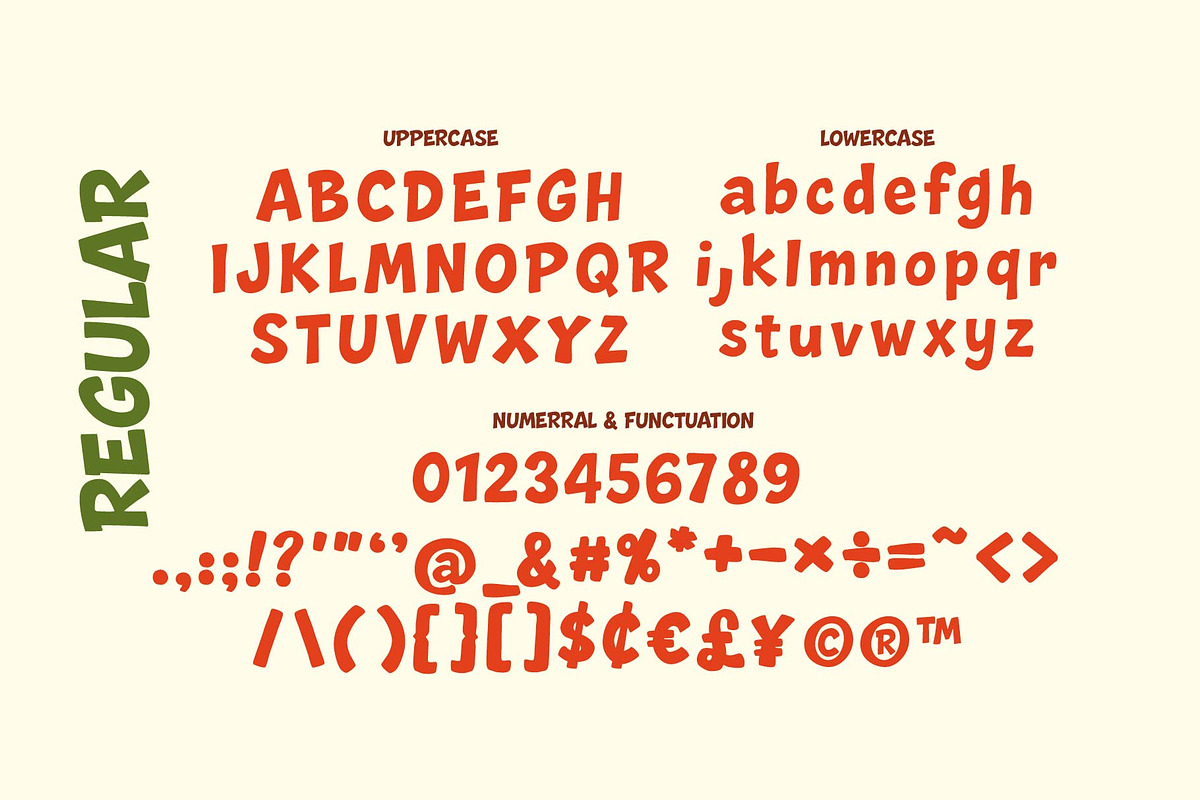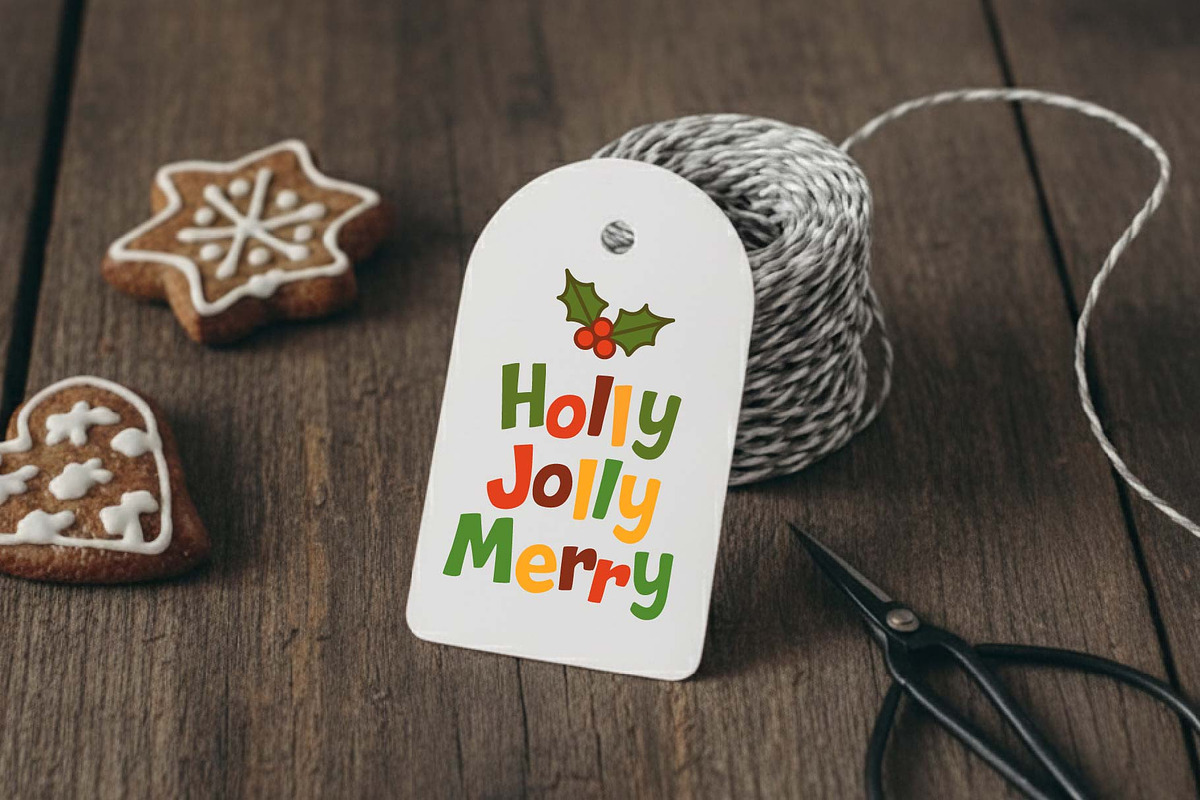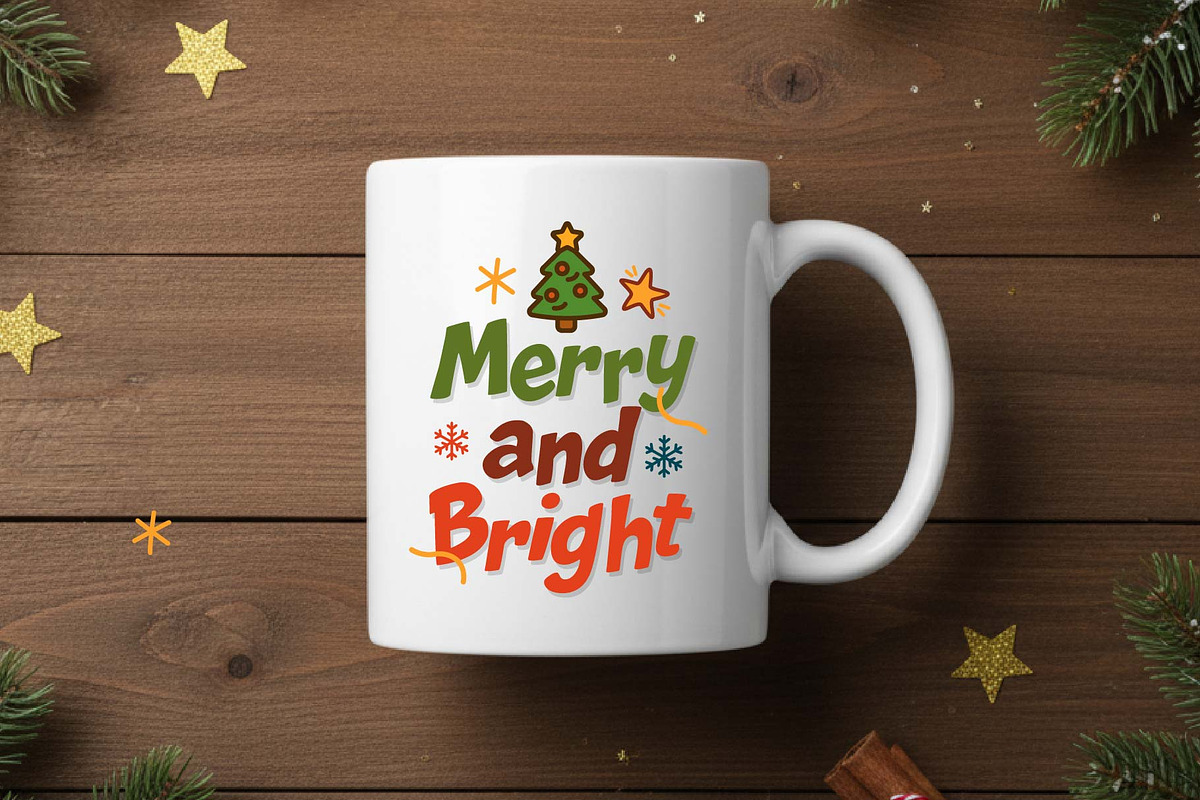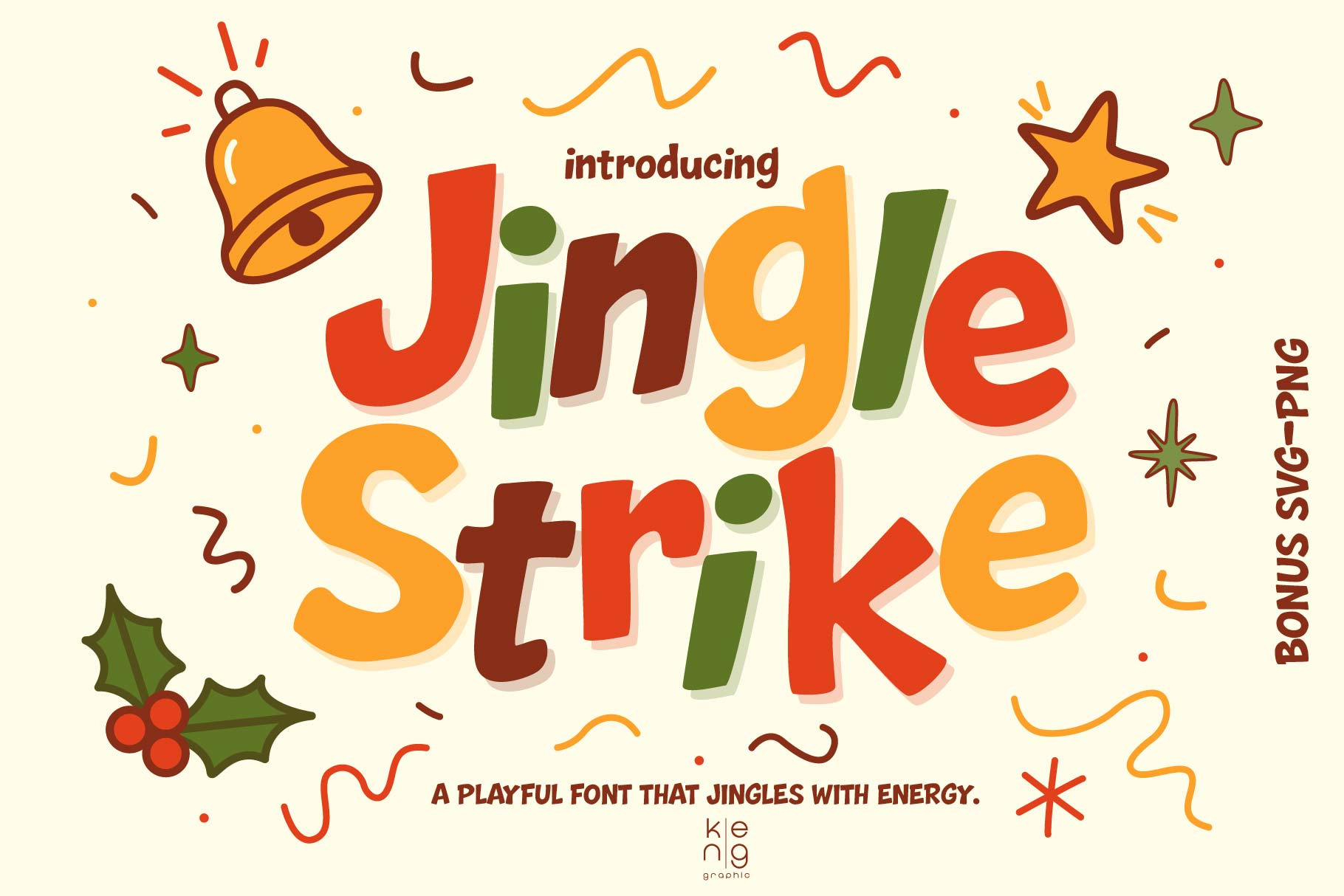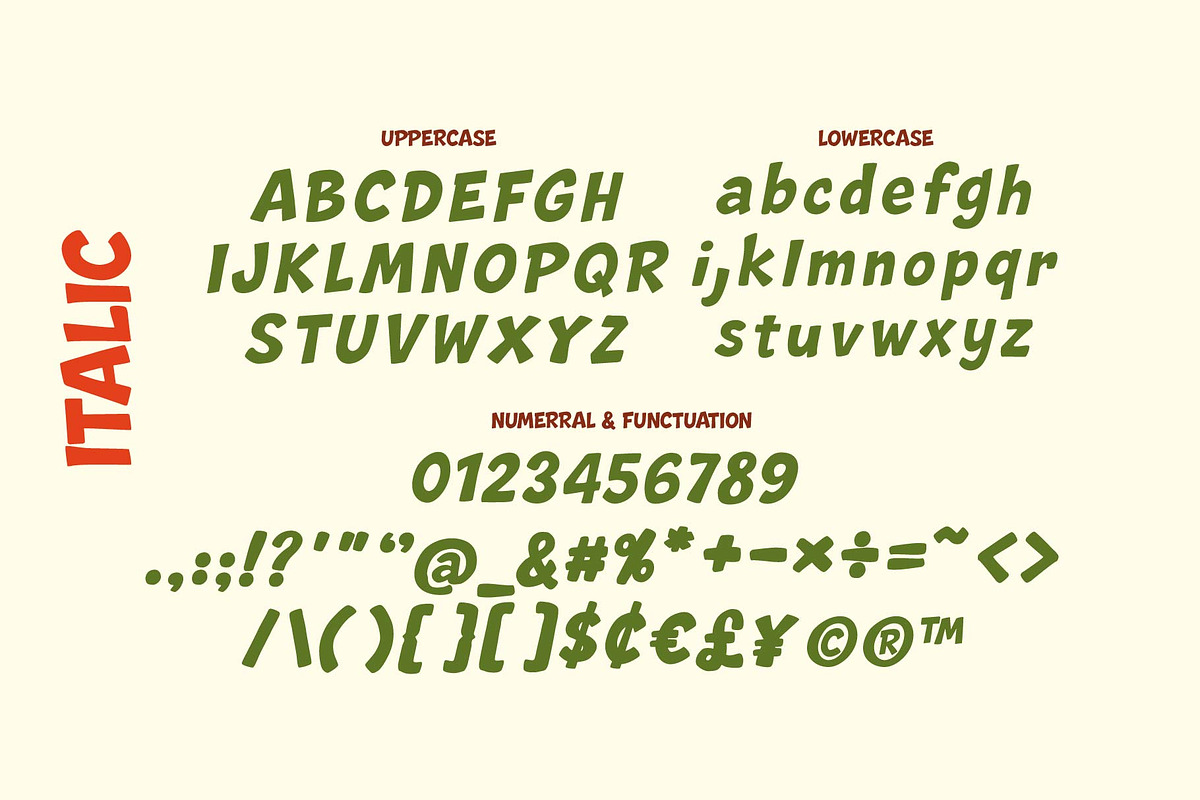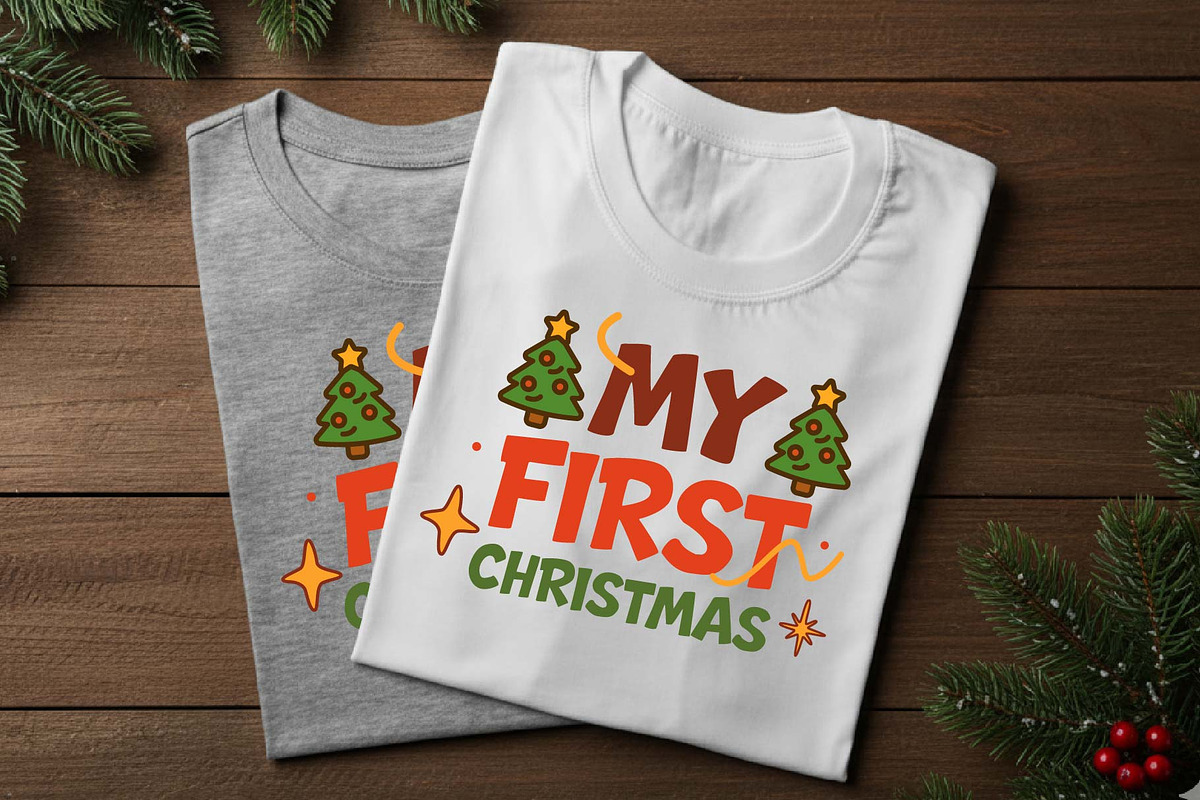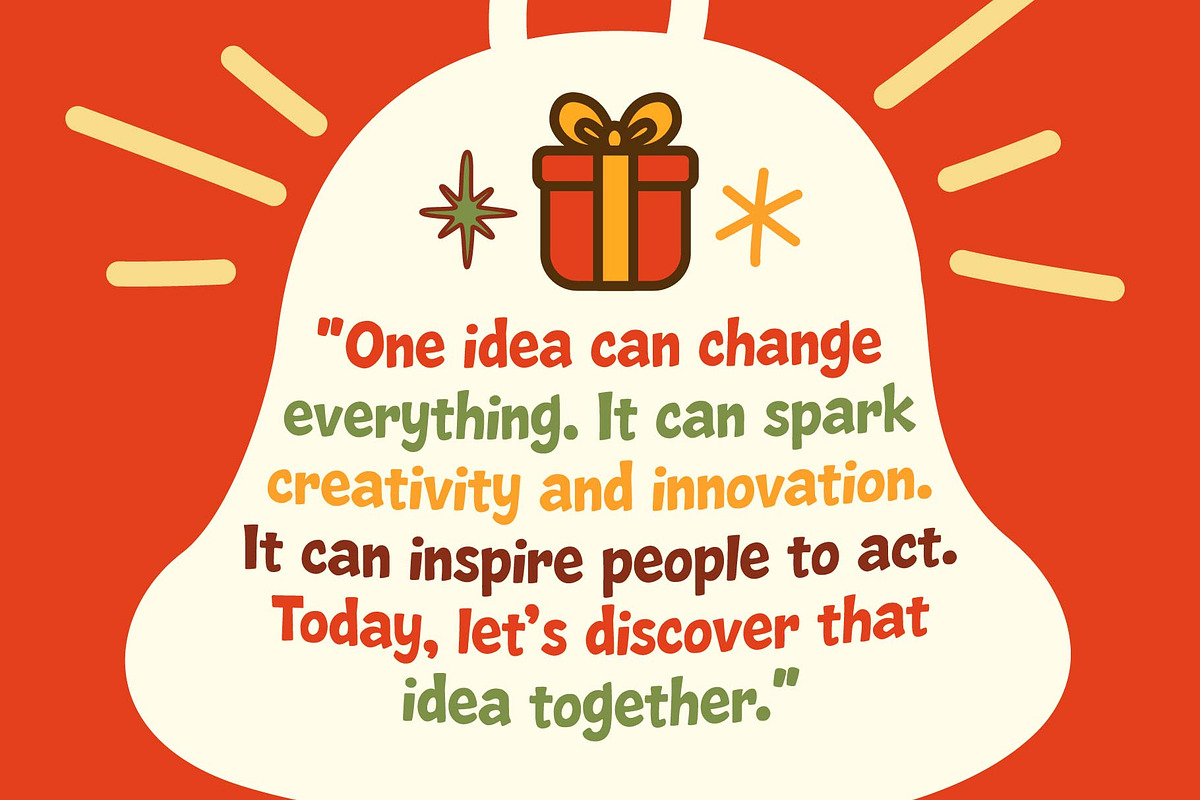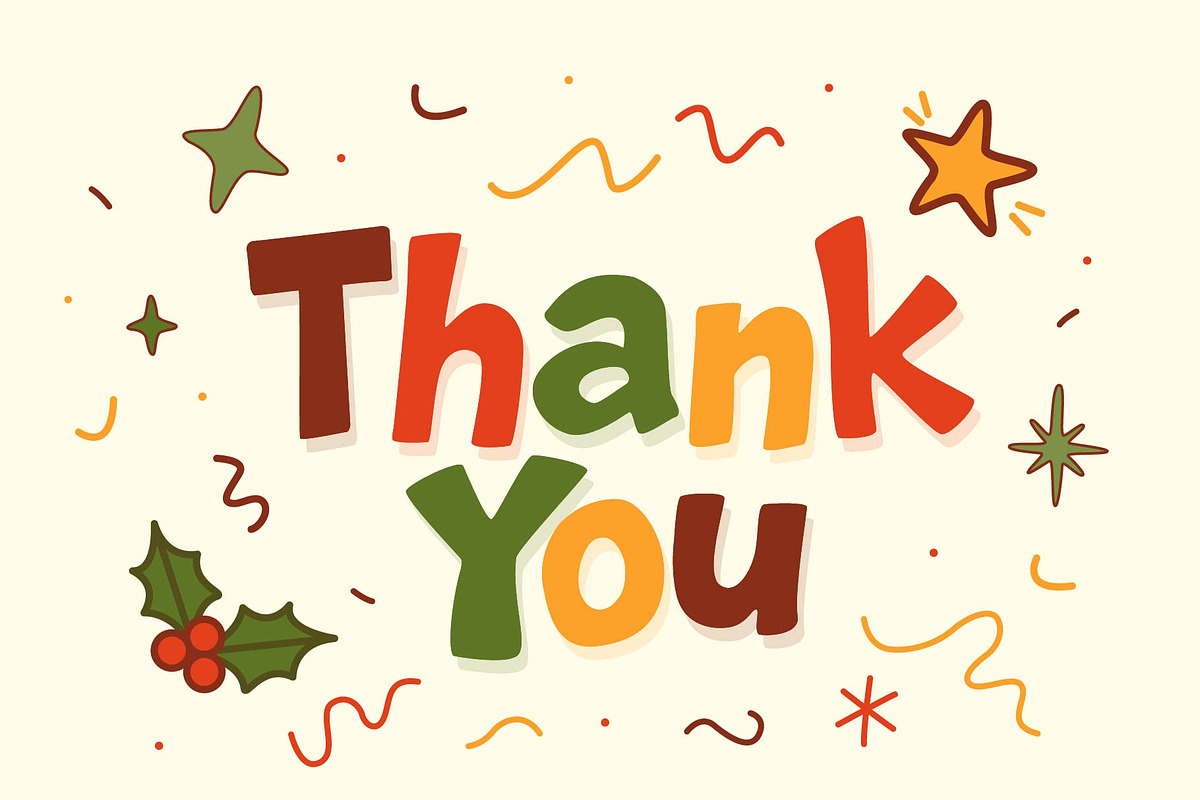
Jingle Strike Font
Immerse yourself in the dynamic essence of ‘Jingle Strike’, a typeface that encapsulates the vigor of radical ideas. Rooted deeply in the soils of originality and inventiveness, this lively font kindles artistic stimulation and prods initiative. Embark on an extraordinary creative journey today, and explore the infinite opportunities ‘Jingle Strike’ infuses into your inventive endeavours. Far beyond a typical design element, this font signifies an influential concept that can drastically elevate your creations. Step into the mesmerizing spell of ‘Jingle Strike’ and witness its captivating magic invigorate your projects.